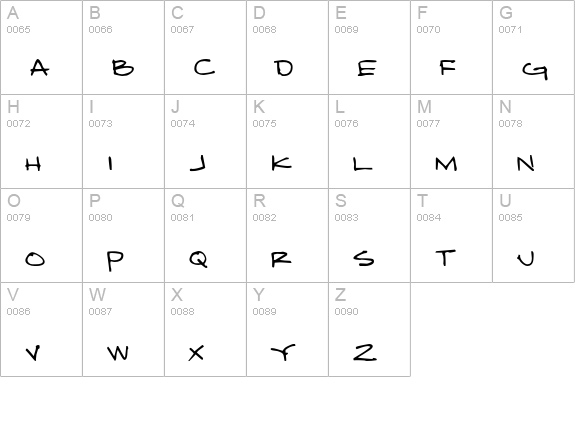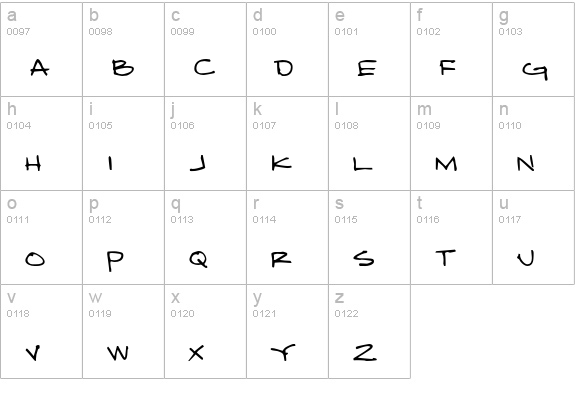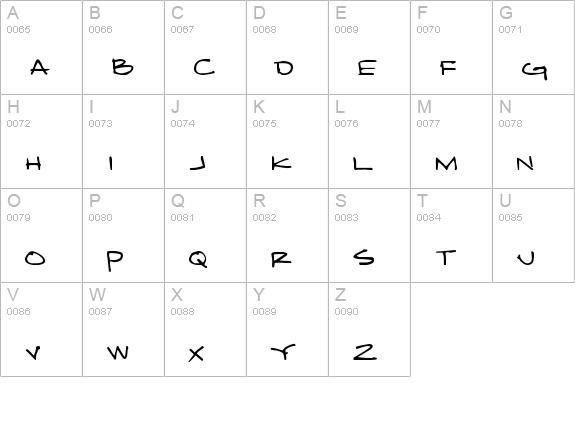
DamnedArchitect Font Details
Introducing DamnedArchitect, a captivating and versatile font that pays homage to the bold and powerful designs of architectural blueprints. With its meticulously crafted letterforms and attention to detail, DamnedArchitect is the perfect choice for projects that require a touch of sophistication and modernity. This unique font effortlessly combines the precision of architectural drawings with the creativity and flair of typography, resulting in a truly eye-catching and memorable typeface. Each letter is carefully constructed to evoke a sense of structure and elegance, making DamnedArchitect an ideal choice for logos, headlines, branding materials, and more. One of the most remarkable aspects of DamnedArchitect is that it is available for free download at FontsMarket.com. This means that designers, creatives, and enthusiasts alike can easily access and utilize this exceptional font without any financial constraints. Whether you're a seasoned professional or just starting out, DamnedArchitect provides an opportunity to enhance your projects with its unique and captivating aesthetics. With its wide range of weights and styles, DamnedArchitect offers endless possibilities for customization and experimentation. From light and airy to bold and commanding, this font allows you to express your creativity and deliver your message with impact. So why wait? Download DamnedArchitect now and unlock the potential of this remarkable font. With its seamless integration into your design workflow and its ability to bring your ideas to life, DamnedArchitect will undoubtedly become an indispensable tool in your typographic arsenal. Take advantage of this free opportunity and elevate your designs to new heights with DamnedArchitect. Visit FontsMarket.com today and experience the power and beauty of this exceptional font.